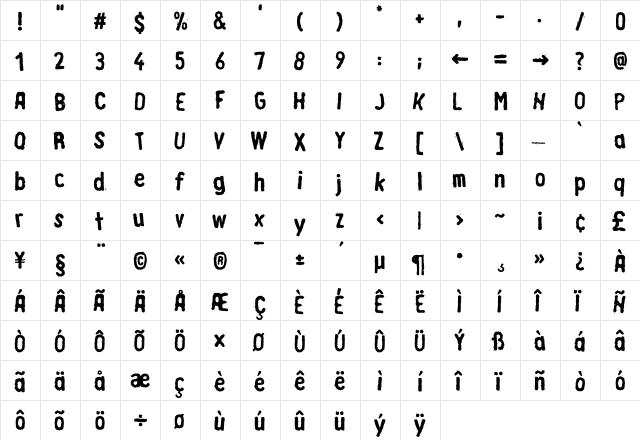
LTRussischBrot EatRegular Font Preview
LTRussischBrot EatRegular Regular
Design Context for LTRussischBrot EatRegular Typeface
LTRussischBrot EatRegular takes a measured approach to typography — its balanced proportions and neutral character make it a reliable workhorse for both digital and print work.